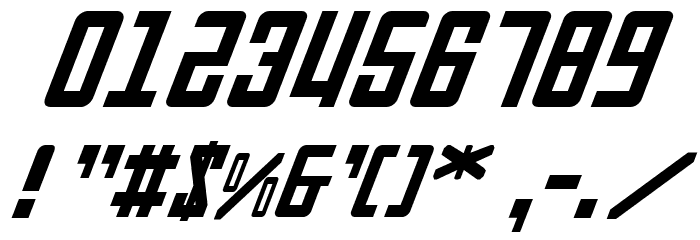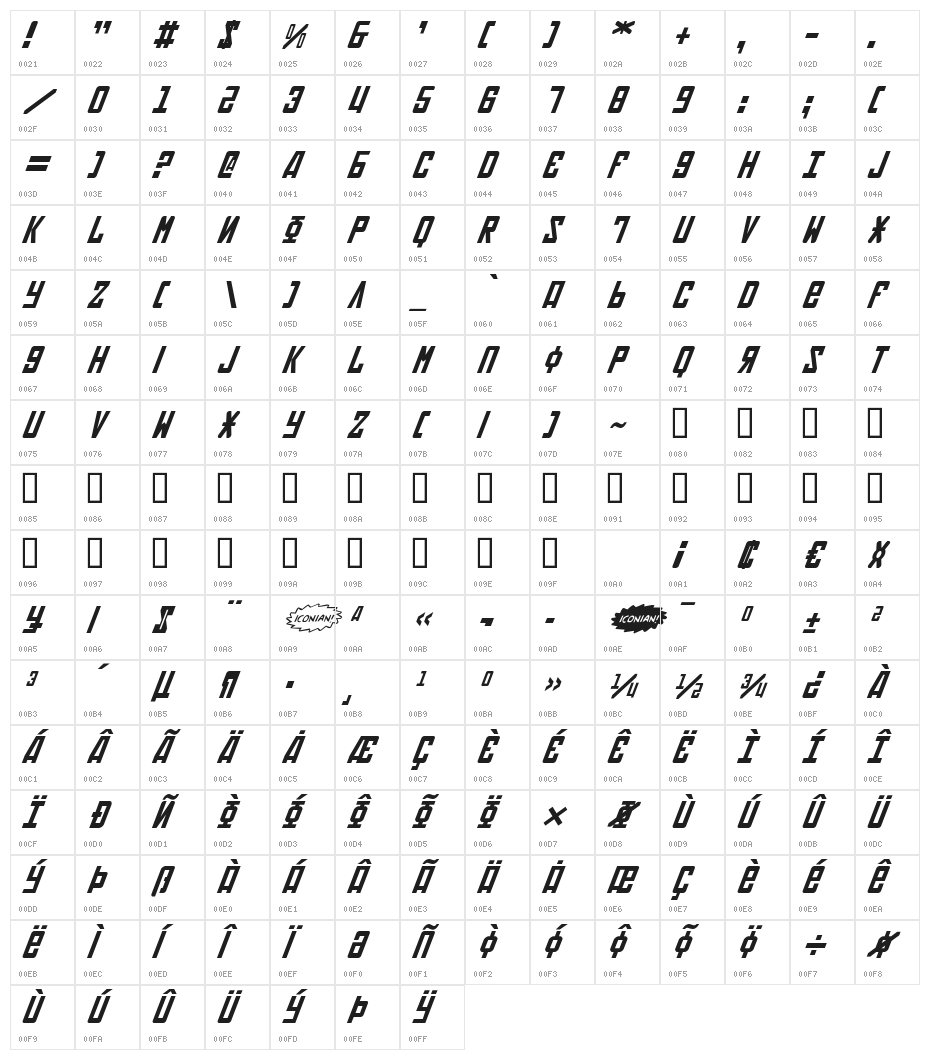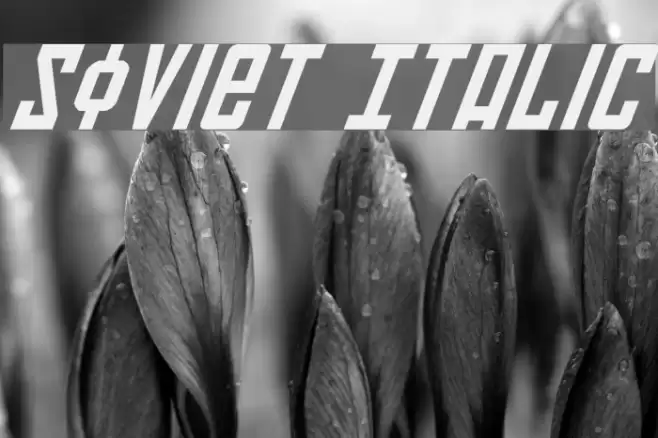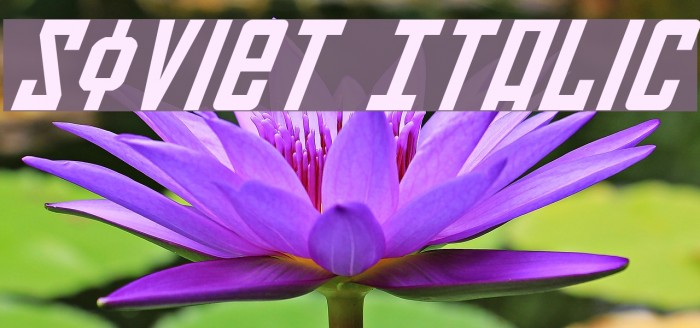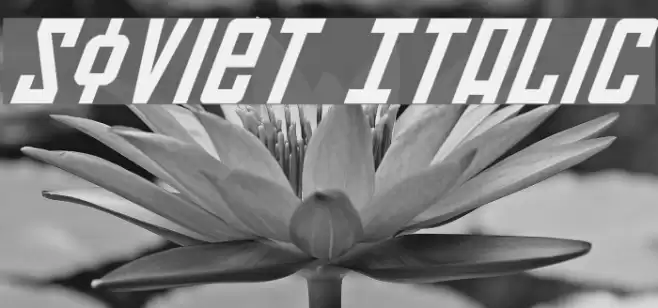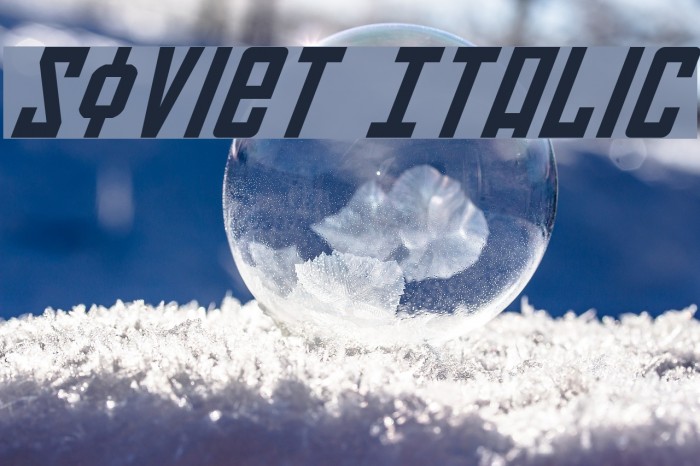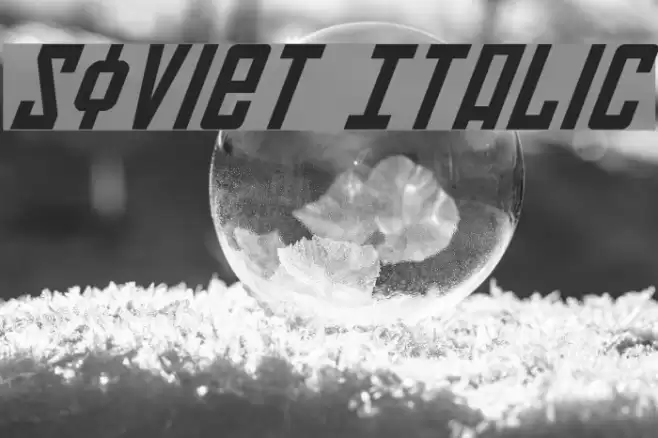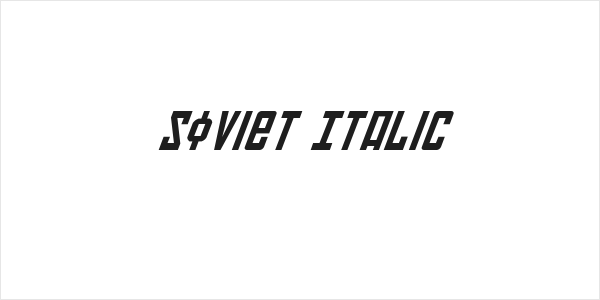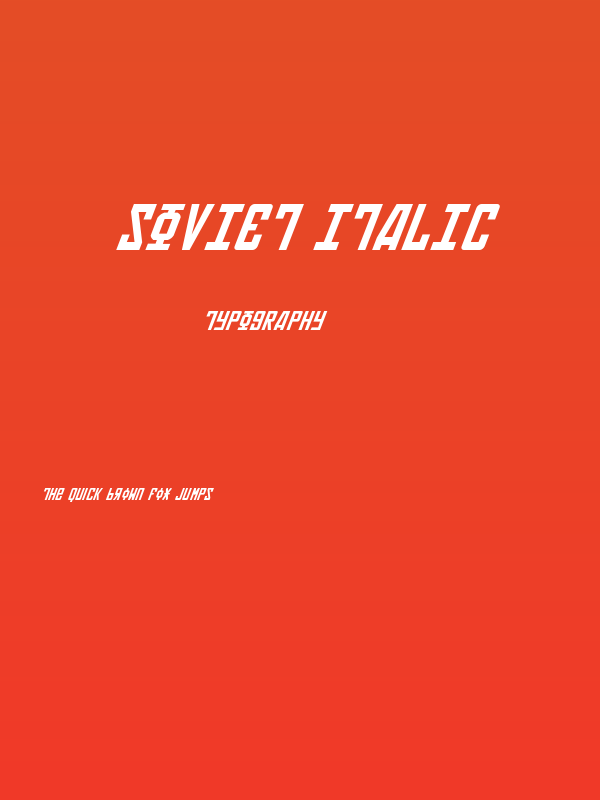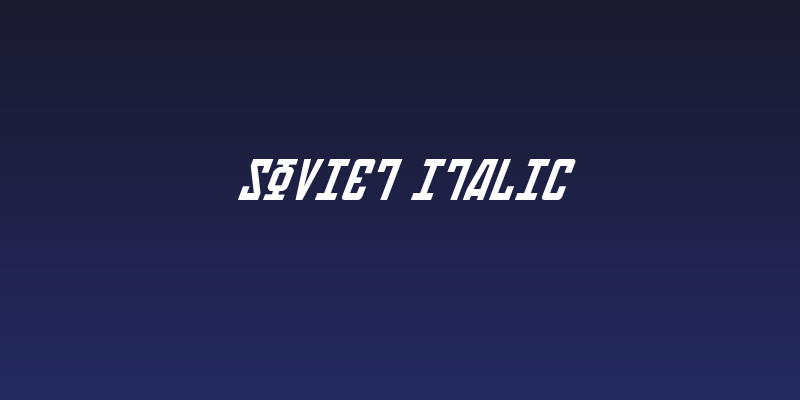
Soviet Italic Font
Soviet Italic Description
This font features a bold, italicized style with a distinct geometric and angular design. The characters are sharply defined with a forward-leaning slant, giving a sense of motion and urgency. The uppercase and lowercase letters maintain a consistent style, with the uppercase being more pronounced. Numbers and special characters follow the same angular and dynamic design, ensuring uniformity across all glyphs. The font's unique style is reminiscent of retro-futuristic or industrial themes, making it stand out with its strong visual impact.
| Overall Style | Retro-Futuristic |
| Proposed Projects | Ideal for projects that require a strong, industrial aesthetic such as posters, branding for tech companies, or video game titles. |